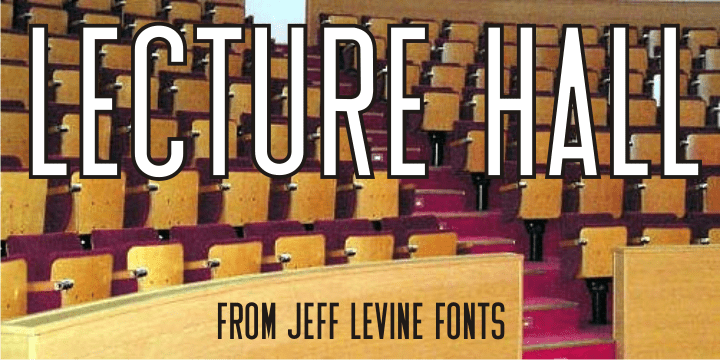
Lecture Hall
Lecture Hall JNL is a reworking of Dance Hall JNL. By removing the Art Deco flairs and realigning the horizontal strokes in order to create a more traditional design, the font now takes on the look of a classic headline face.